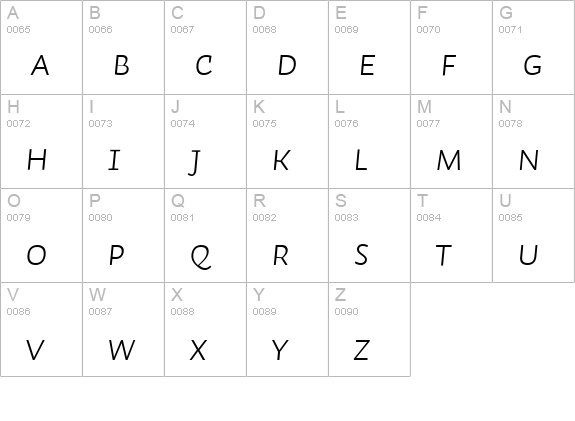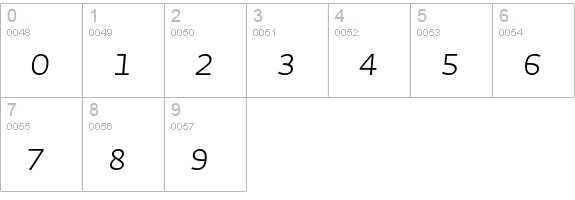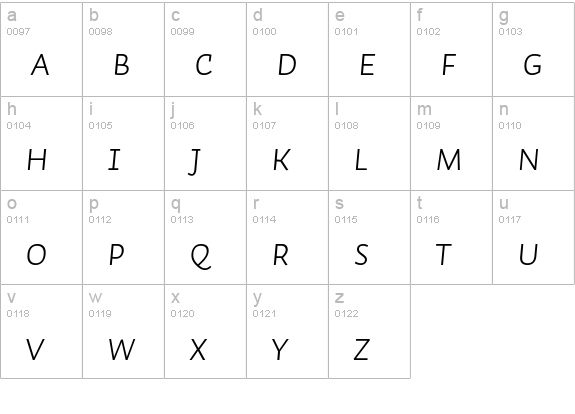
Auto 3 Light Italic SmCp is a refined, elegant, italic variant in the Auto typeface family \xE2\x80\x94 well suited to elegant body text, refined sub-headings, and luxury branding.
Auto 3 Light Italic SmCp font is a sleek and modern typeface that exudes elegance and sophistication. With its slender and stylish design, this font is perfect for adding a touch of class to any project. The italicized letters add a sense of movement and dynamism, making it ideal for conveying a sense of energy and creativity. This font is not only visually appealing but also highly versatile, making it suitable for a wide range of design applications, from branding and advertising to editorial and web design. Its small caps characters add a unique flair to any text, allowing for increased flexibility and creativity in typography. Best of all, Auto 3 Light Italic SmCp font is available for free download at FontsMarket.com. So whether you're a professional designer looking to elevate your projects or a hobbyist seeking to add a touch of sophistication to your creations, this font is the perfect choice. Download it today and unleash your creativity with Auto 3 Light Italic SmCp font!